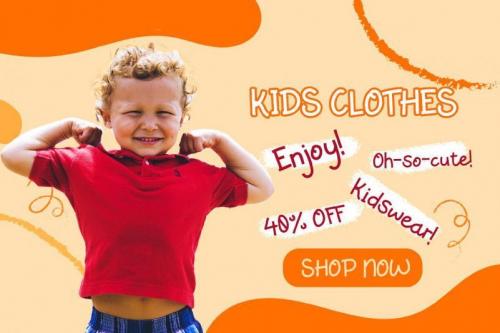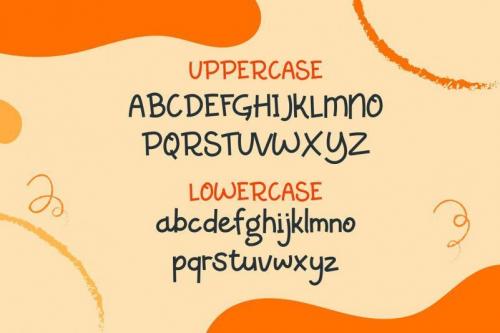
Presenting Caramelia Font. Inspired by Playful style and combination with Hand Lettering style. I hope this can make inspire you from your work.
Caramelia Playful Font is perfect for those of you who want the style of children, designed by StringLabs. Fonts Made specifically for purposes such as: Kindergarten, Birthday, Kid, Cartoon, Comic, Children, and Playground.